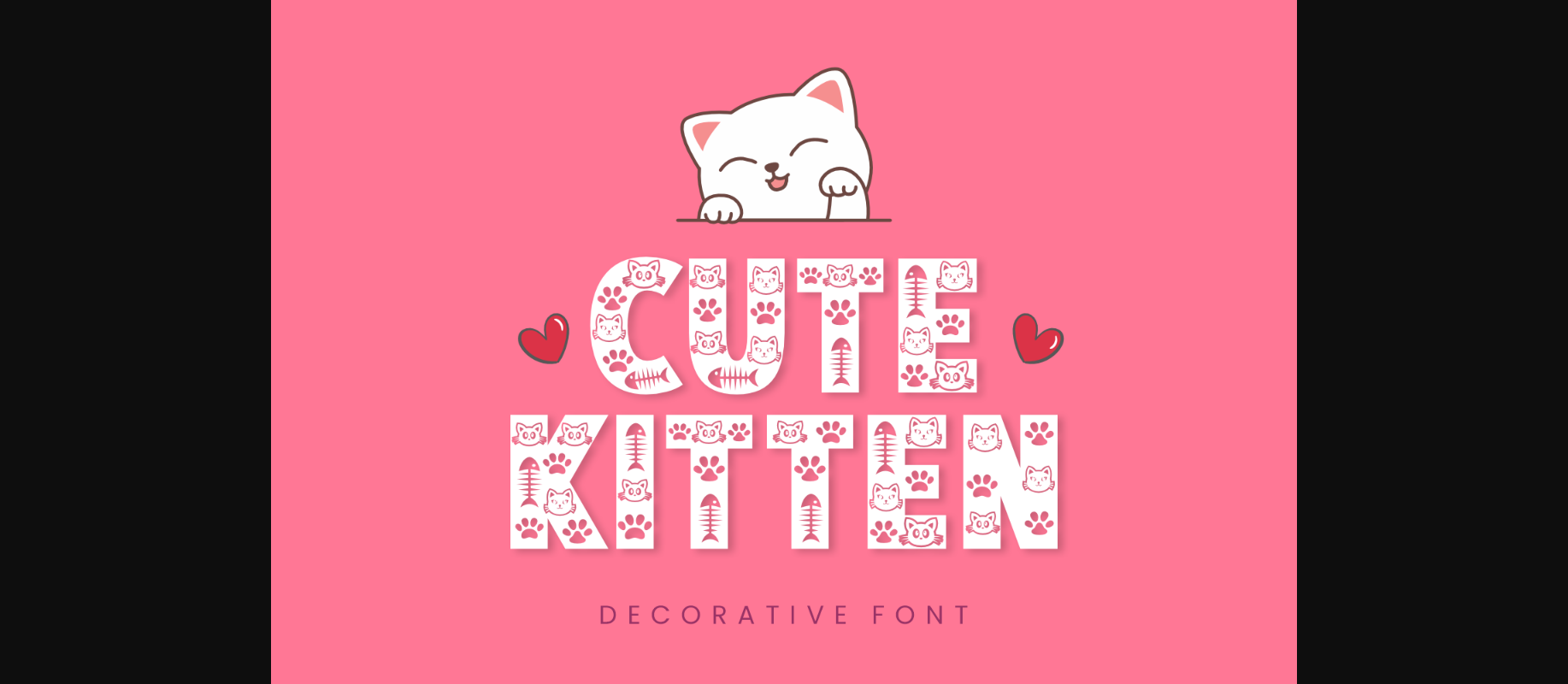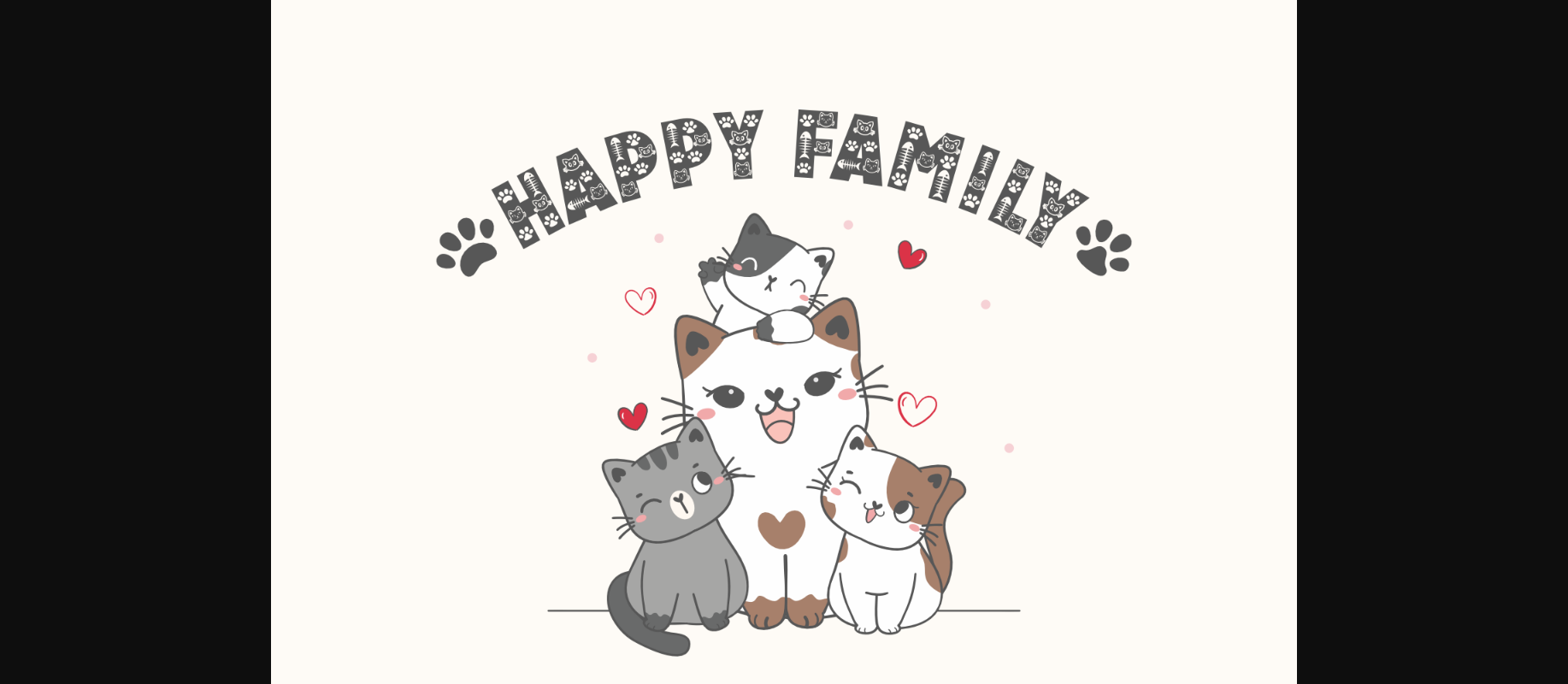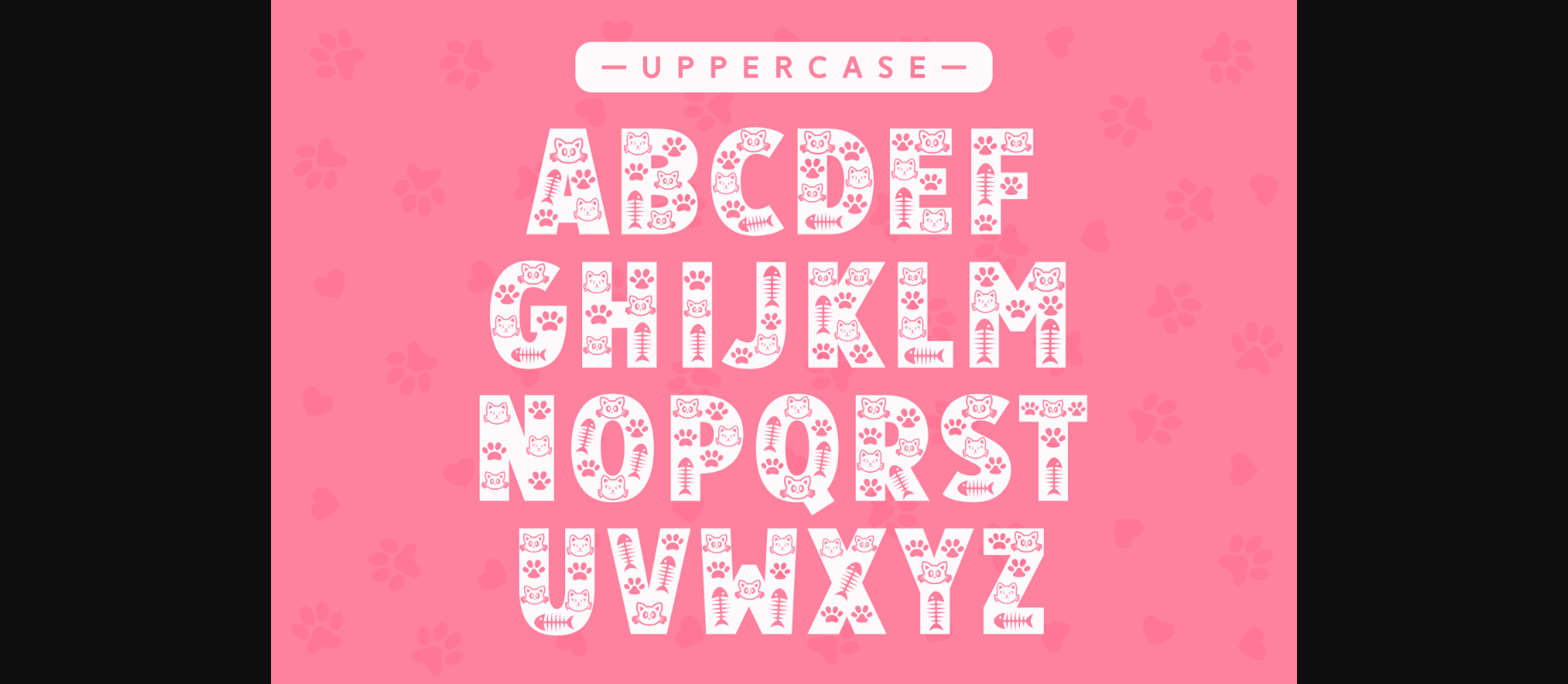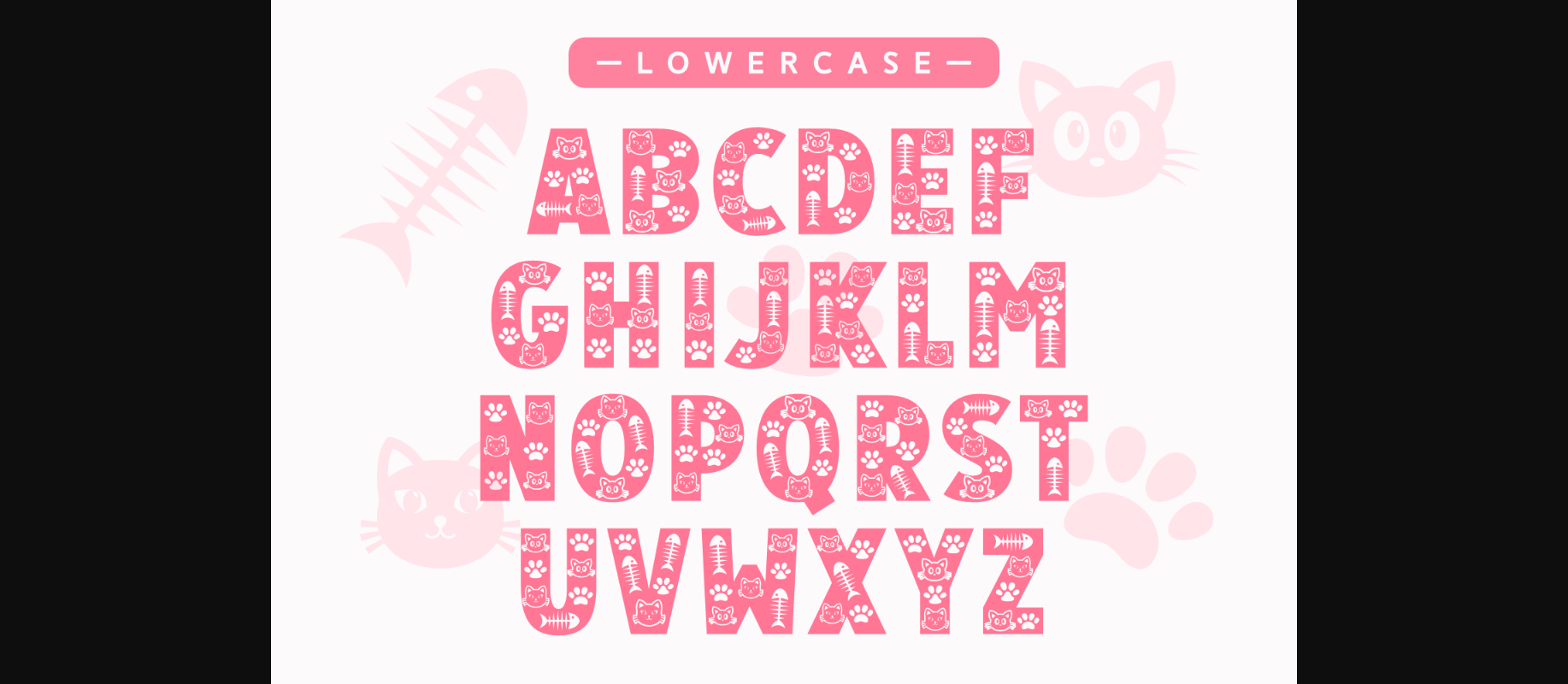
Cute Kitten Font
About Cute Kitten Font
Cute Kitten is an adorable decorative font featuring bold characters and kitten accents. This lovely typeface is great for cat food packaging, children-related designs, or anything that needs youthful typography.